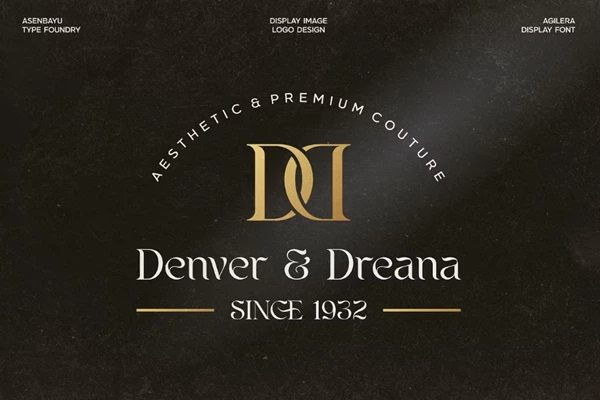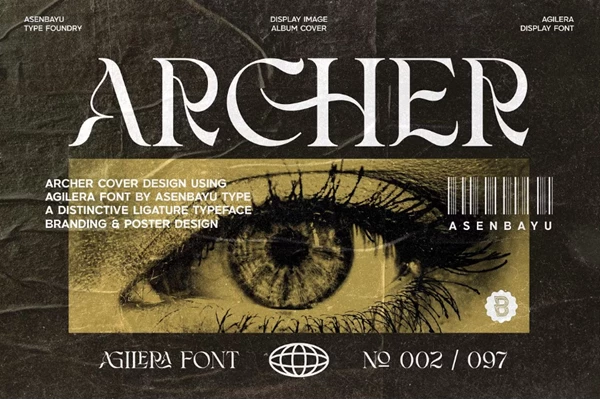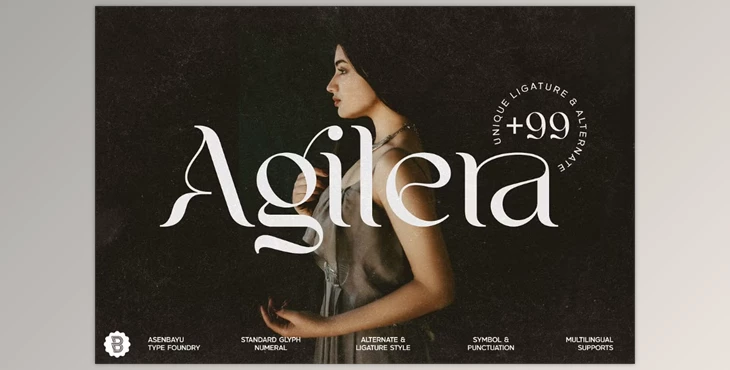
Agilera - Stylish Ligature Font:
Agilera is an accomplished and unparalleled font that is a ligature typeface with an Art Nouveau influence. It has smooth flowing lines and complex curves that creates a blend of thick and thin strokes making it visually stunning. Create modern packaging labels and posters, logos and brand fashion related items and many more with this stunning font.